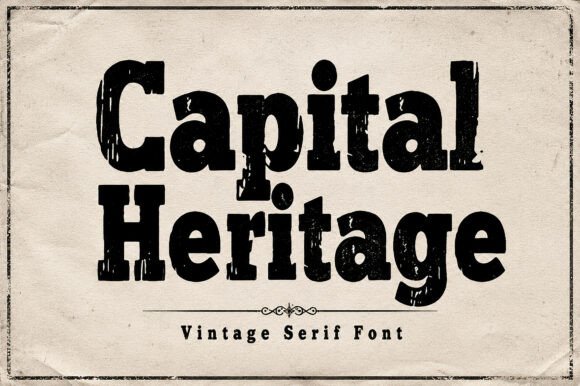
Step Back in Time with Capital Heritage: A Bold Vintage Serif Font
I’ll never forget the design project that led me to discover Capital Heritage. I was working on a branding campaign for a craft brewery, and I needed a font that would evoke the industrial, vintage feel of the late 19th century. I scoured the internet, tried out countless fonts, but nothing seemed quite right. That was until I stumbled upon Capital Heritage. Its bold, slab serif architecture and beautifully weathered texture instantly transported me to another era. I knew I’d found the perfect fit for my project.
- ✅ Instant vintage charm: Capital Heritage has an unmistakable, time-worn quality that adds character to any design.
- ✅ High-impact headlines: The font’s bold, slab serif architecture makes it perfect for attention-grabbing headlines and titles.
- ✅ Versatile: Capital Heritage works beautifully for a range of applications, from packaging and labels to editorial design and branding.
- ✅ Detailed texture: The subtle woodblock ink erosions and irregular edge lines give the font a beautifully weathered, authentic feel.
- ⚠️ Legibility at small sizes: While Capital Heritage is stunning at larger sizes, it can become a bit tricky to read at smaller sizes (e.g., body text).
- ⚠️ Limited use for body text: Due to its bold, slab serif architecture, Capital Heritage is best suited for headlines and titles rather than extended body text.
A Practical Guide: Using Capital Heritage in Your Design Workflow
Capital Heritage was inspired by the industrial typography of the late 19th century. The font’s designer, a typography enthusiast, spent countless hours pouring over vintage advertisements, labels, and signage. The result is a font that perfectly captures the grit, elegance, and craftsmanship of a bygone era.
| What makes Capital Heritage unique? | Its beautifully weathered texture, subtle woodblock ink erosions, and irregular edge lines give it a distinctive, time-worn quality. |
| Is Capital Heritage suitable for body text? | While it’s stunning at larger sizes, Capital Heritage is best suited for headlines and titles rather than extended body text. |
| Does Capital Heritage support OpenType features? | Yes, Capital Heritage supports OpenType features, including stylistic alternates and glyphs. |